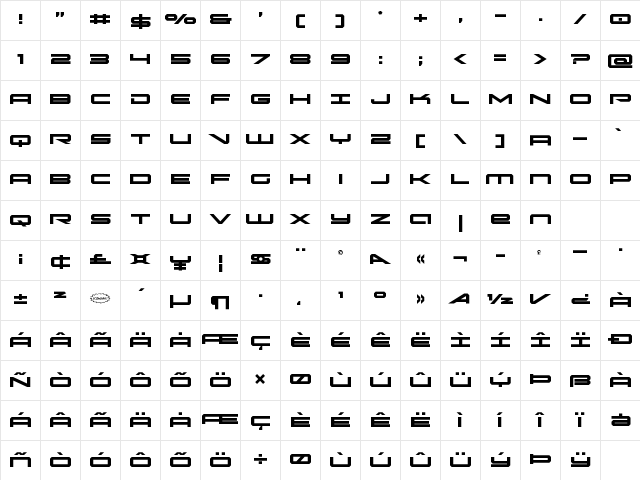
Oramac Regular Free Font
Oramac Regular
Oramac Family
Design Context for Oramac
Oramac is a composed and adaptable typeface that performs quietly and consistently across a wide range of design contexts.